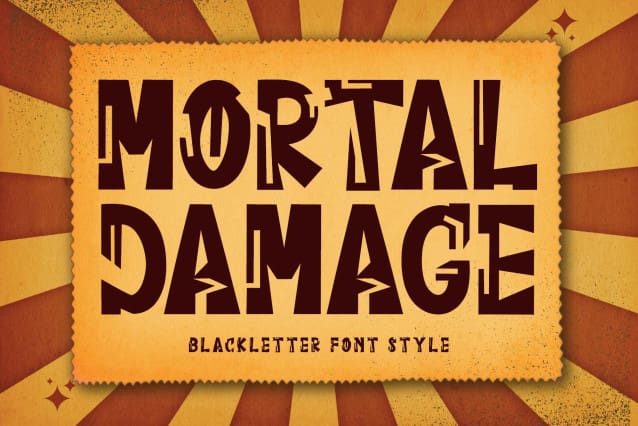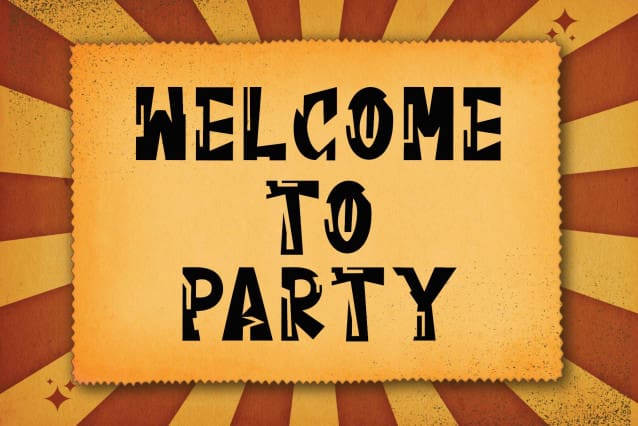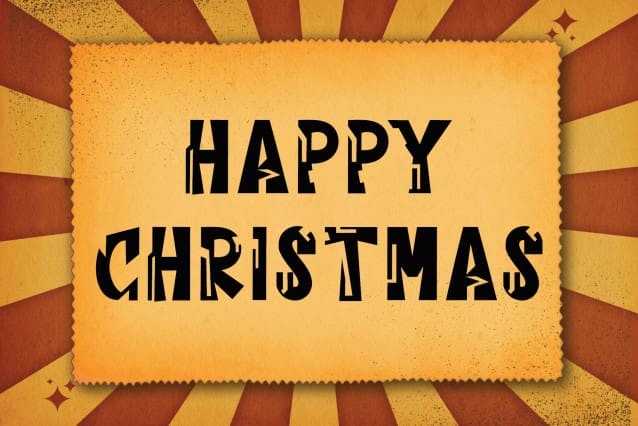
Mortal Damage Font
Mortal Damage Font is a unique and elegant blackletter font. This font is equipped with uppercase, lowercase, numerals, punctuations and multilingual support. Very suitable for use for Christmas, Halloween, Autumn, posters, prints, banners, branding, posters, stickers, social media, logos and others.